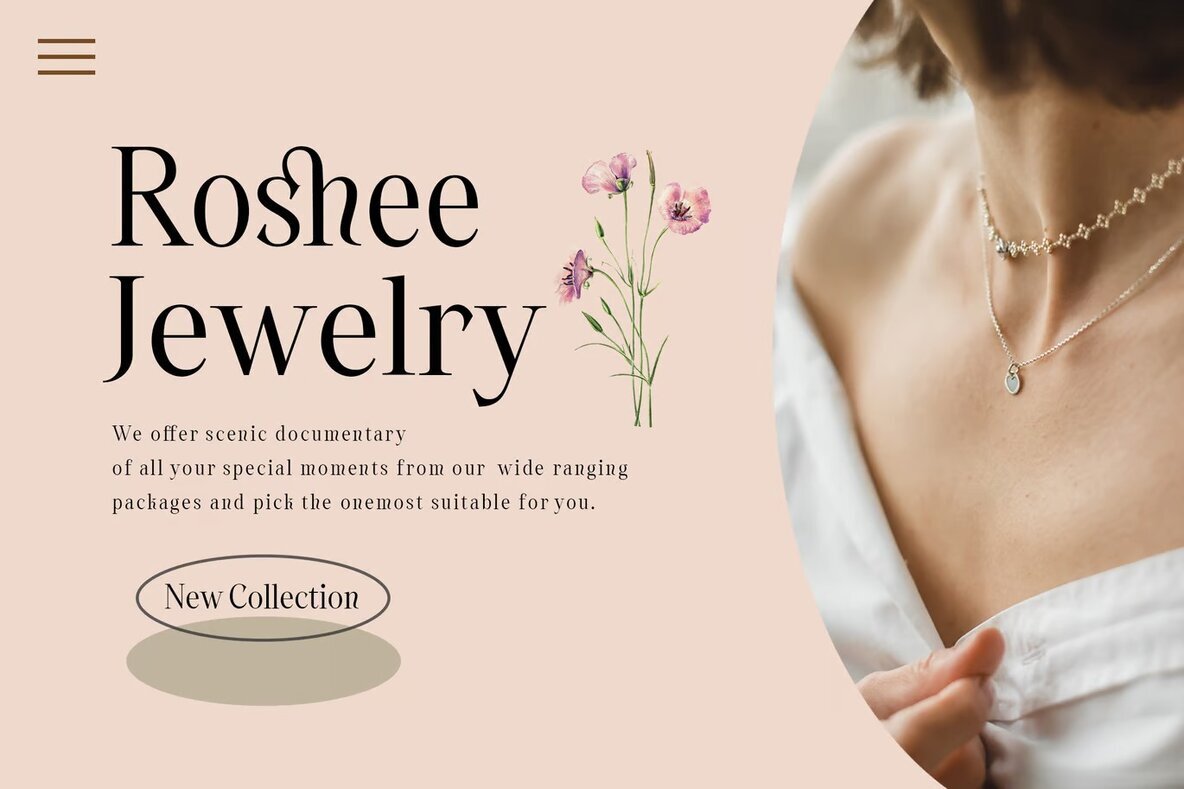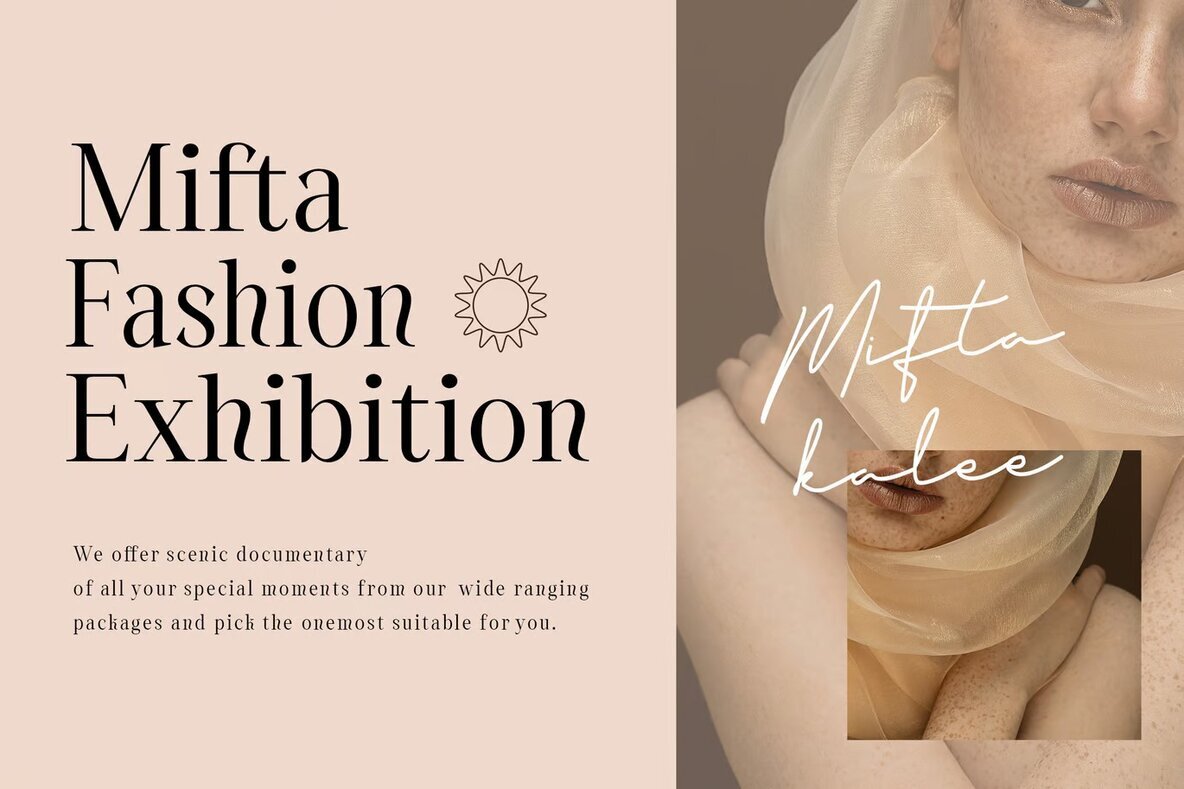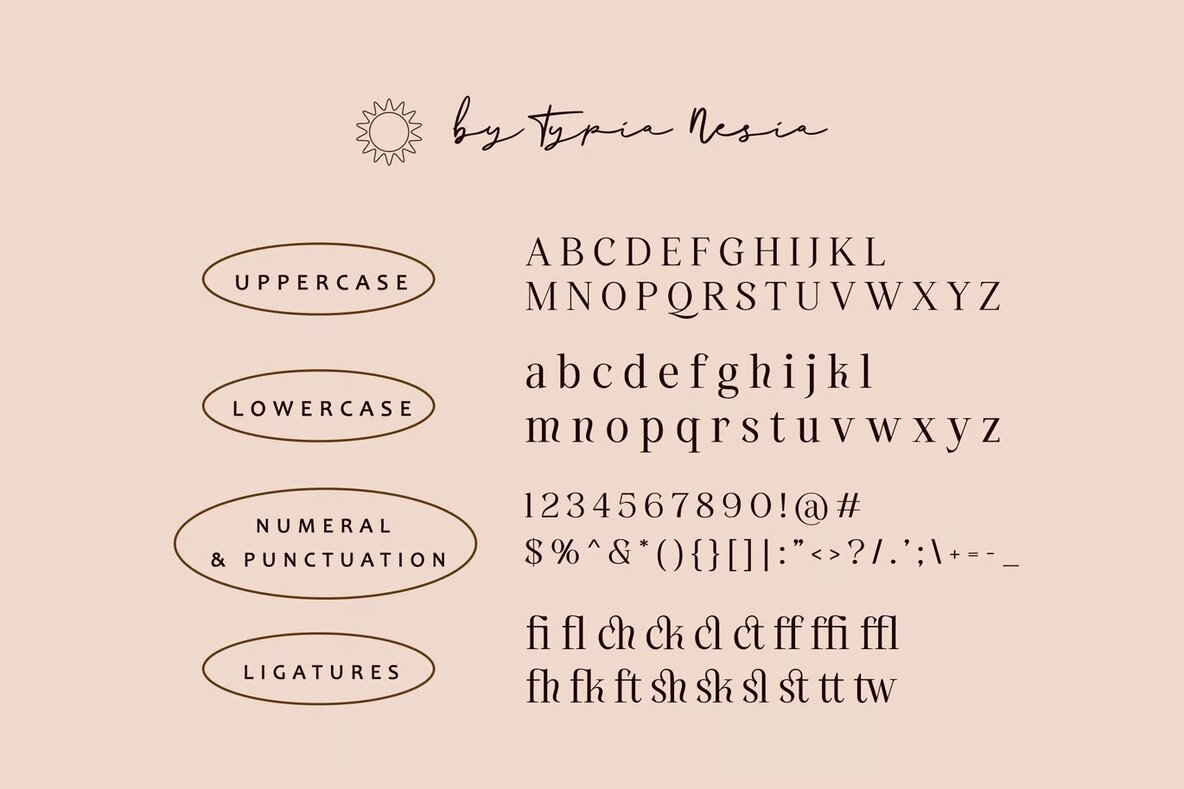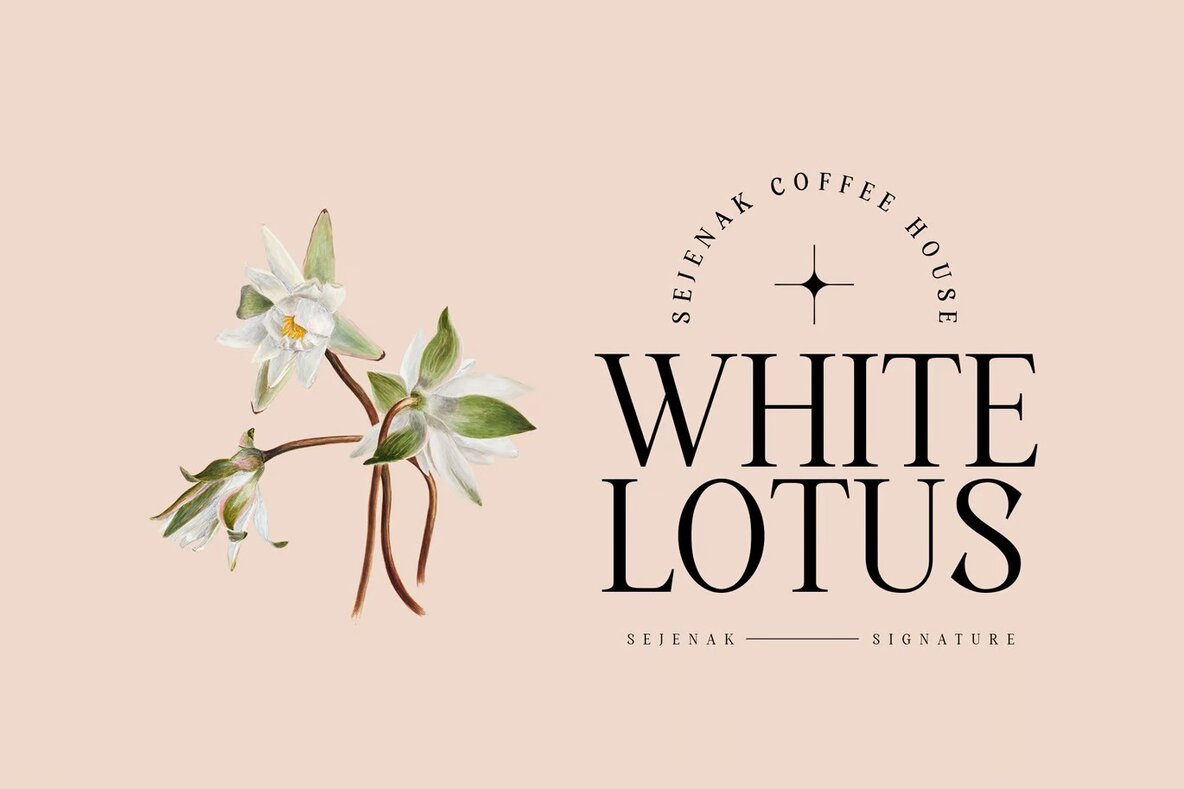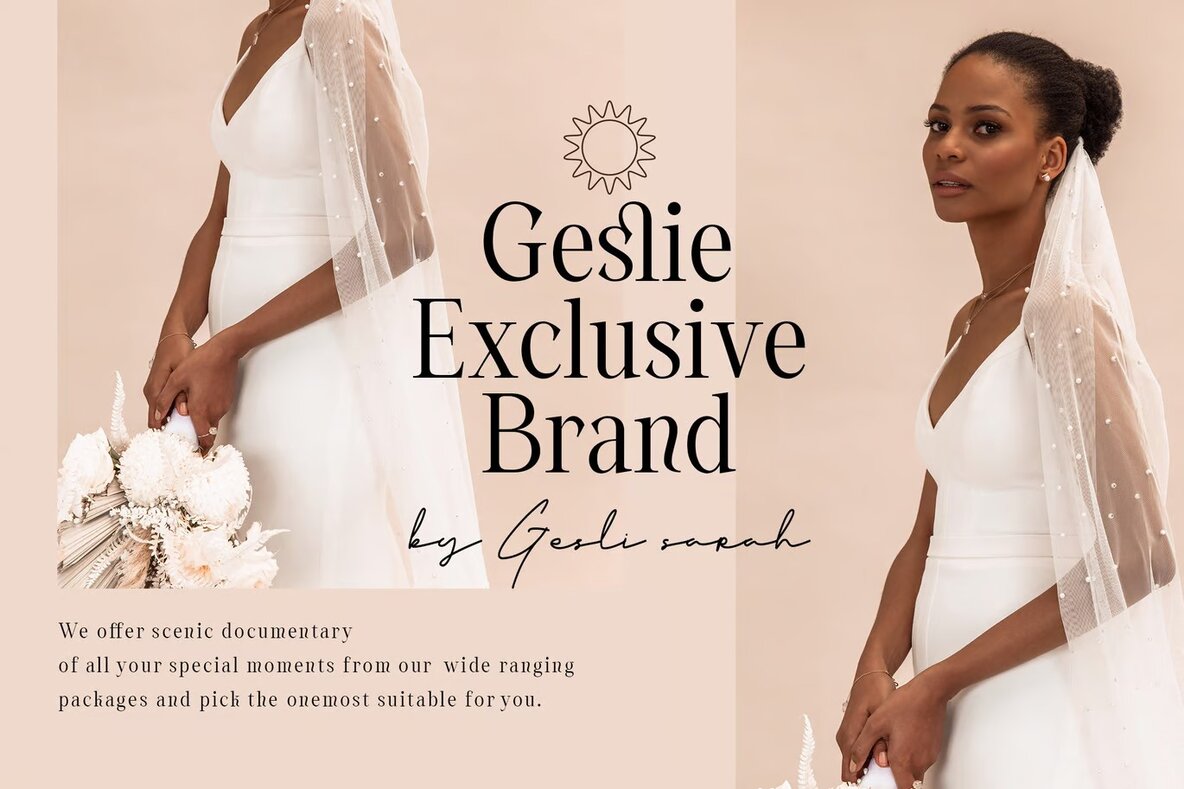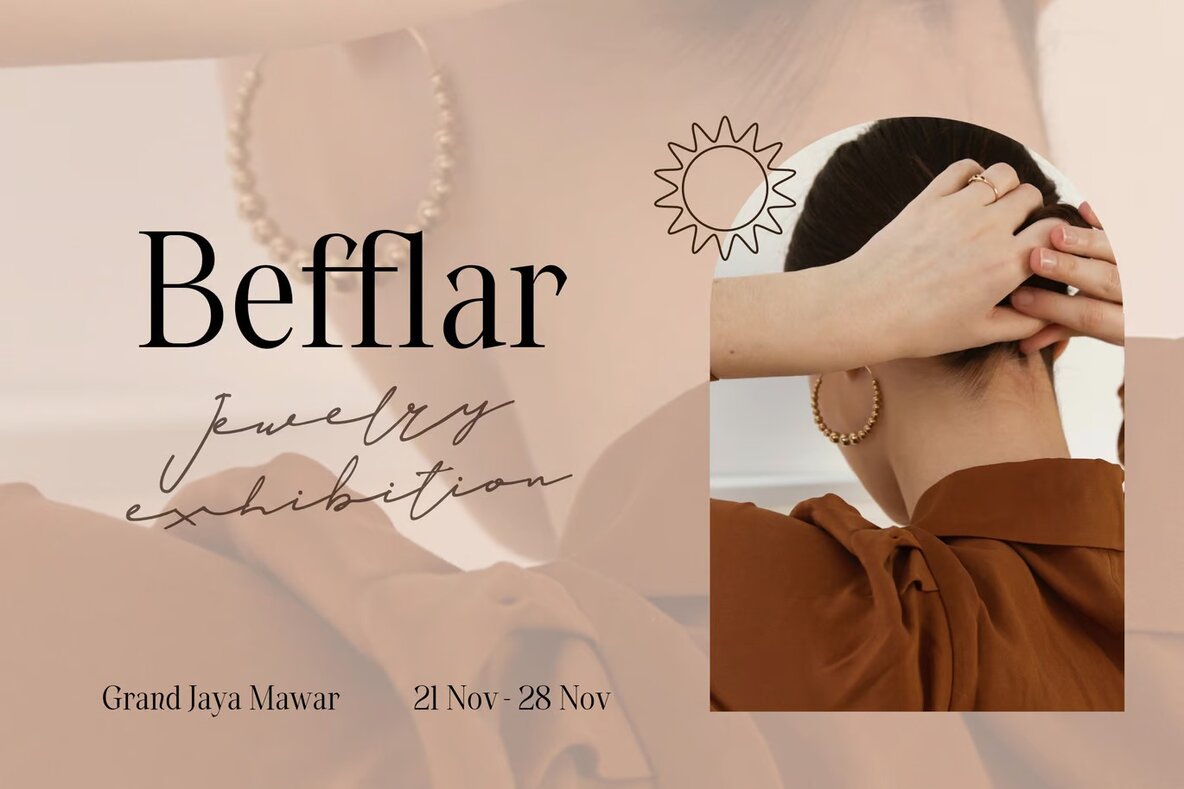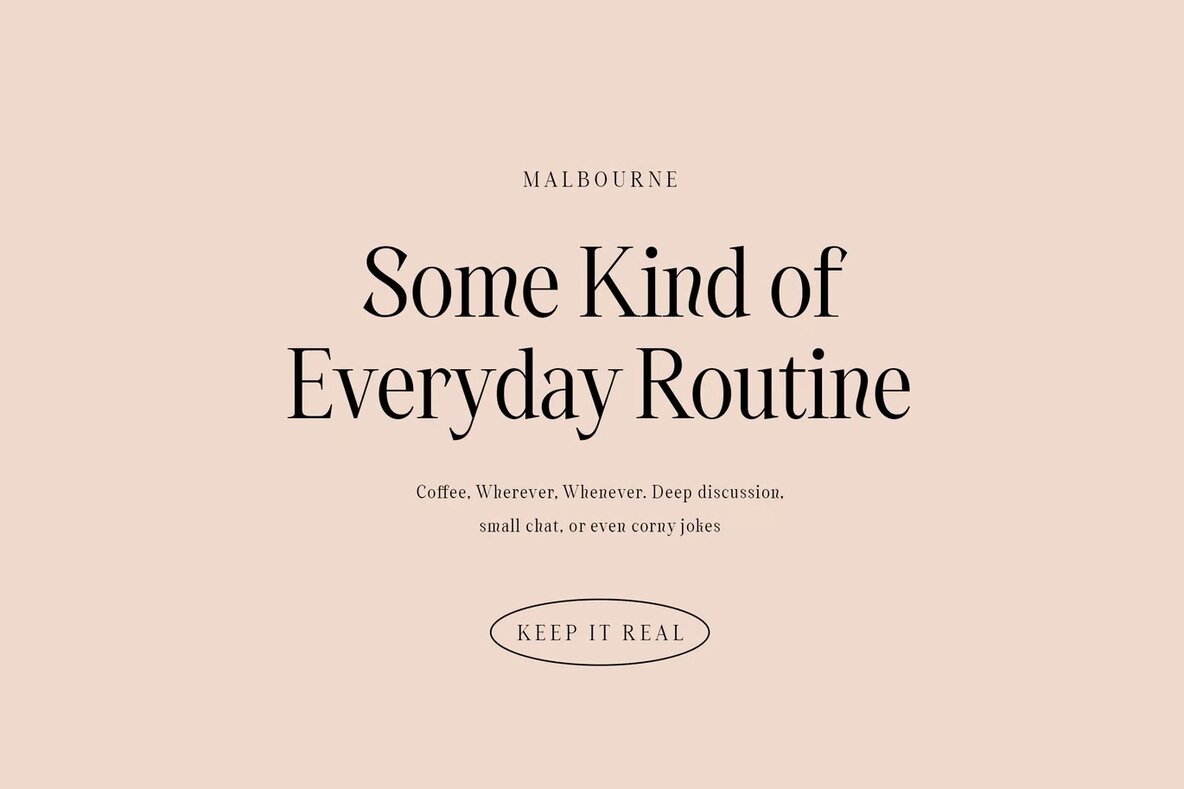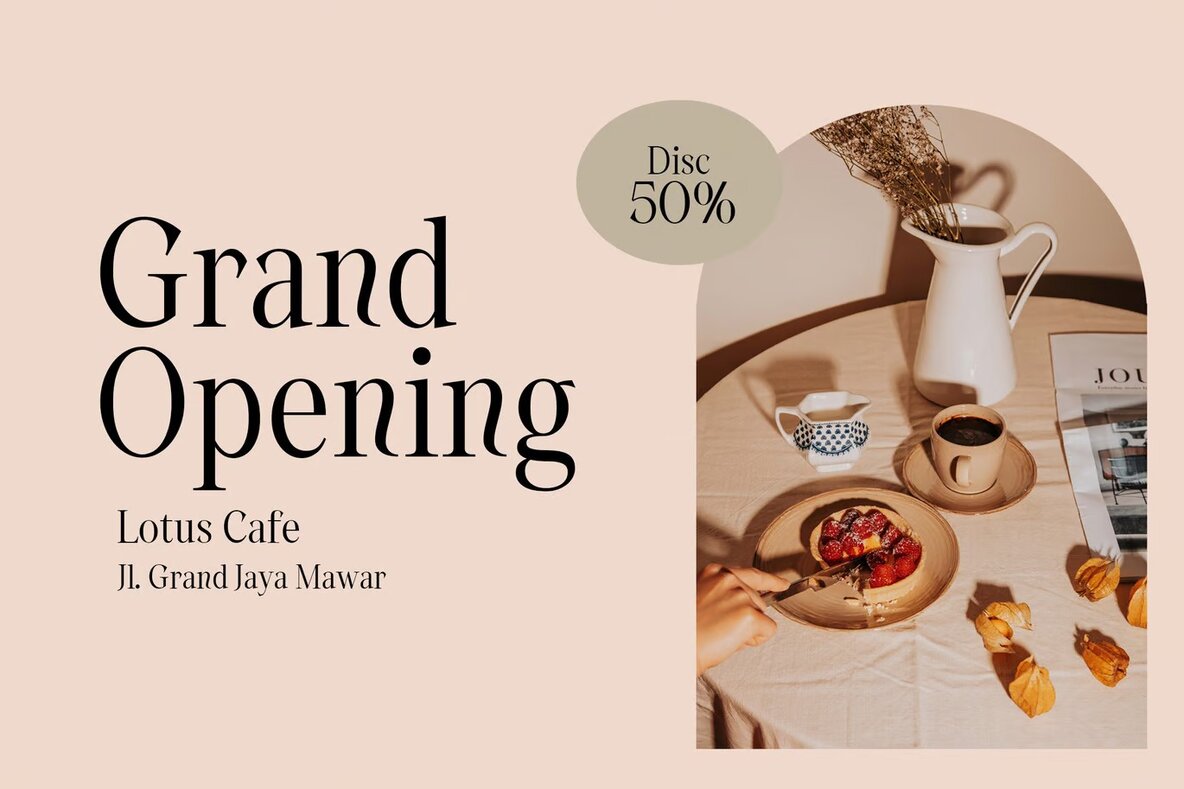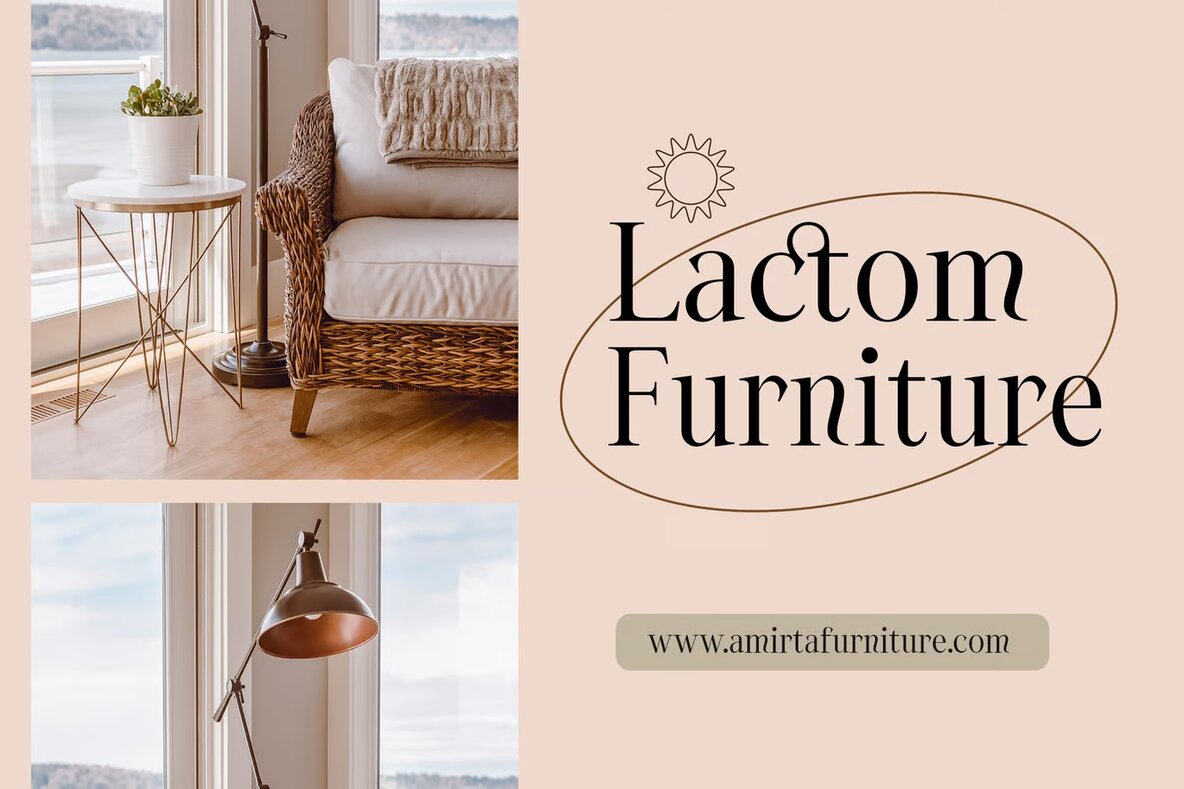
Quinshe Font
Quinshe Regular
Quinshe is an expressive serif font designed to add a touch of elegance and classic beauty to your projects. Featuring a selection of ligatures, it allows for creative typography combinations, perfect for luxury and high-end design needs. Ideal for projects such as luxury logos, branding, and editorial designs, Quinshe presents a versatile option for fashion magazines, cosmetic brands, and art galleries. It offers a refined aesthetic suitable for museums, architectural showcases, boutiques, stationery, blogs, and modern advertising.
Whether you're working on card invitations, art quotes, home décor, or book titles, Quinshe provides a sophisticated flair. Its classic style makes it perfect for special events and more. The font’s design strength lies in its ability to convey classiness and nostalgia while remaining modern and relevant, making it an excellent choice for designers seeking to create timeless and impactful visuals.